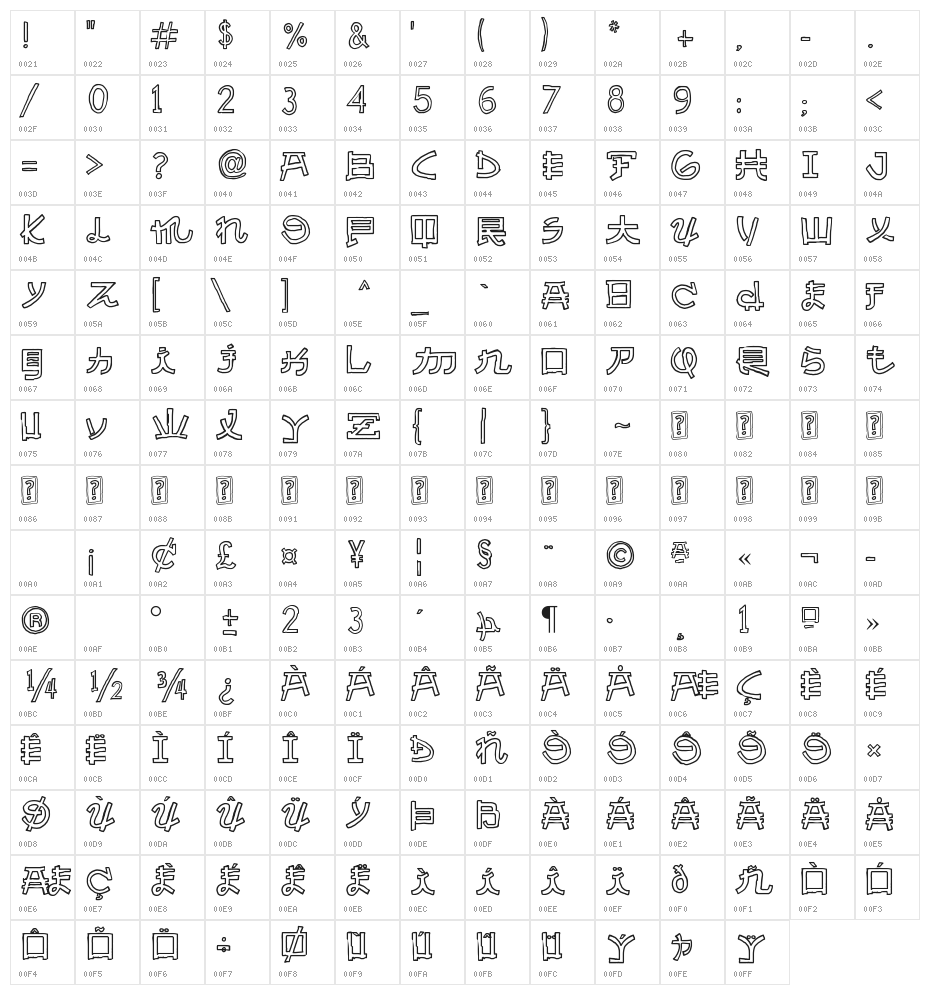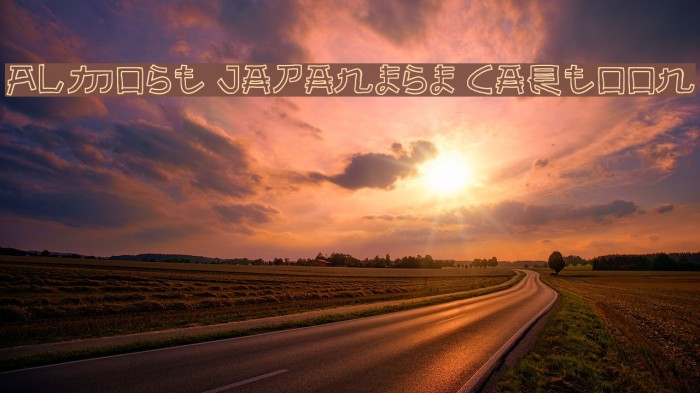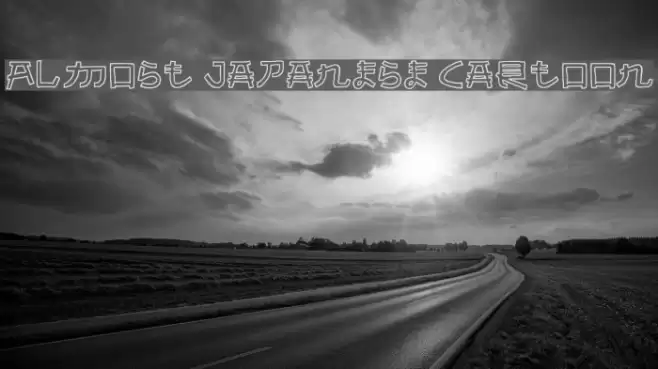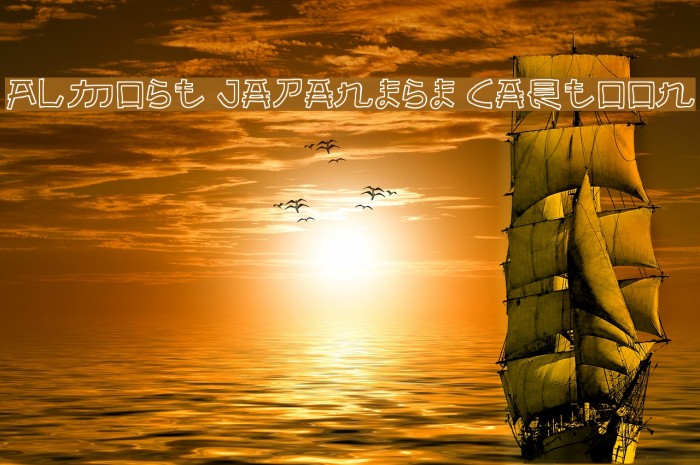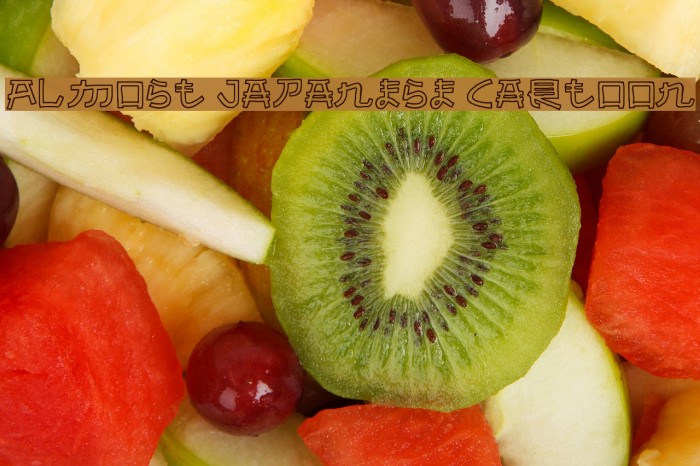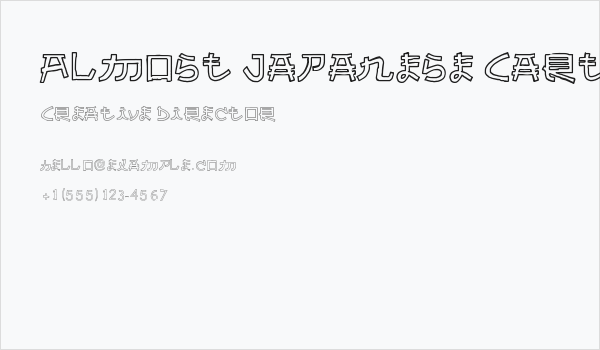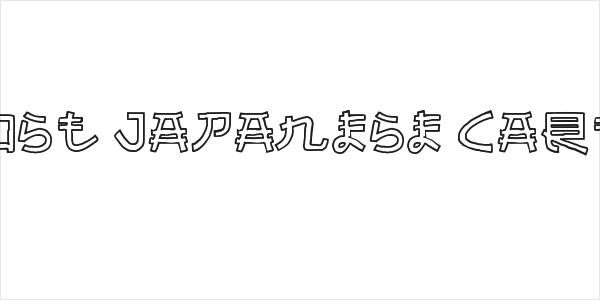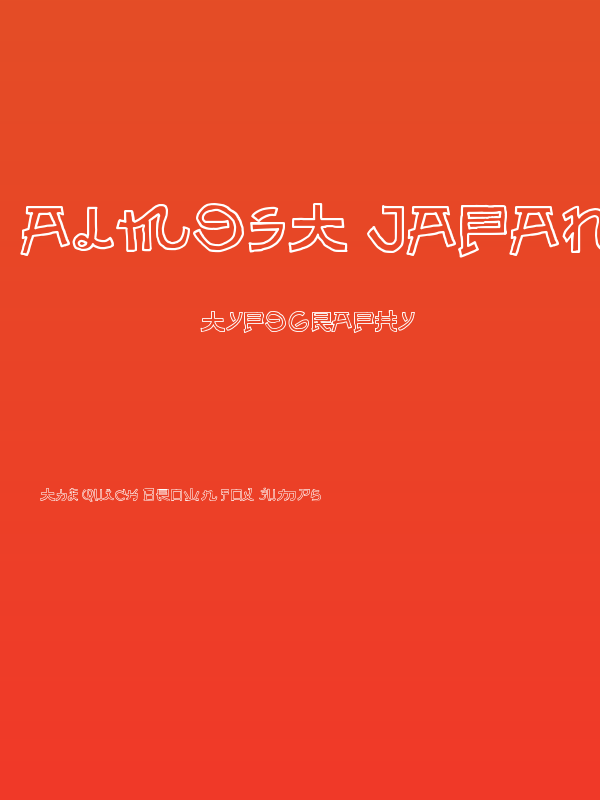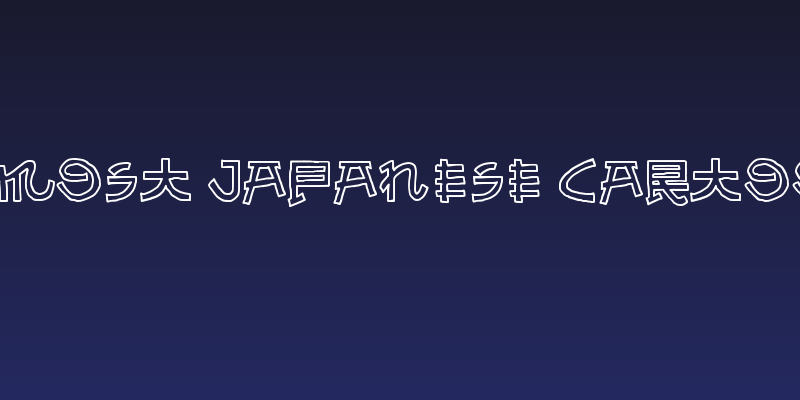
Almost Japanese Cartoon Font
Almost Japanese Cartoon Description
This font features a playful and cartoonish style, reminiscent of Japanese animation aesthetics. The characters are bold and outlined, giving them a three-dimensional appearance. The strokes are thick and consistent, with rounded edges that add to the whimsical feel. The uppercase letters are distinct and easily recognizable, while the lowercase letters maintain a similar style, ensuring readability. Numbers and special characters are designed to match the overall theme, making them suitable for creative projects. The font's unique style makes it stand out, perfect for capturing attention in various design contexts.
| Overall Style | Cartoonish, Playful |
| Proposed Projects | Ideal for comic books, children's books, animated video titles, and playful branding materials. |